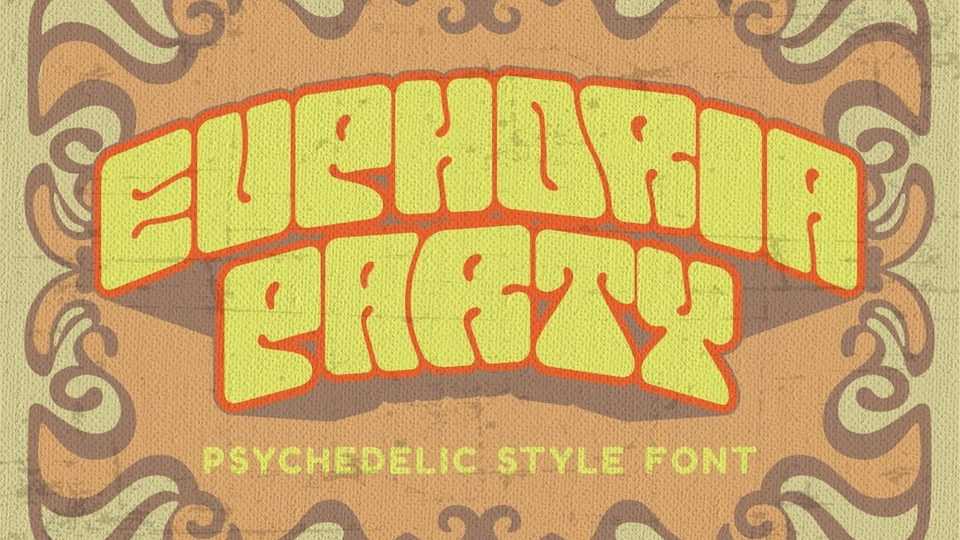
Download Euphoria Party font, a psychedelic style typeface with a classic, fun and groovy impression. Euphoria Party is inspired by vintage albums and posters from 1960s music bands.